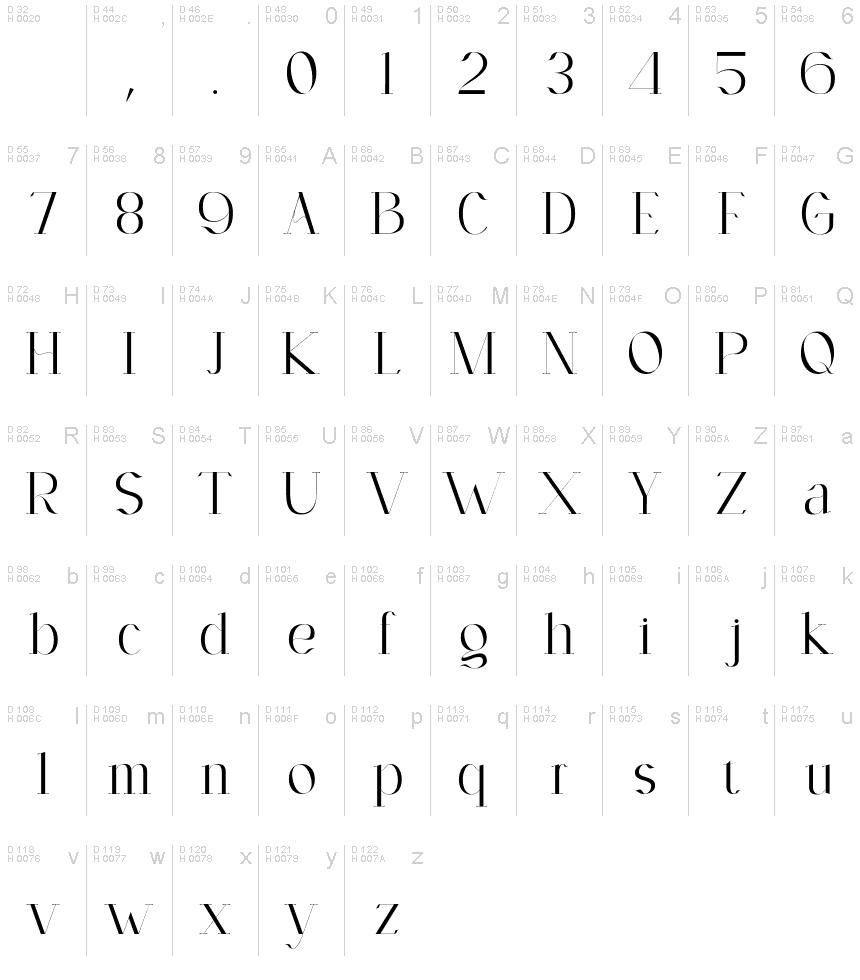
Garetc Regular
Garetc, designed by Muksal Creative, is a captivating vintage serif font with a semi-light weight. Its timeless and elegant appeal makes it an ideal choice for various creative projects.
The classic charm of Garetc can beautifully enhance your wedding invitations, bringing a touch of sophistication to the event. This font also suits magazine layouts perfectly, adding a nostalgic flair to your articles or interviews. For those looking to create eye-catching signage or branding materials with a hint of old-world charm, Garetc is the font that effortlessly captures attention.